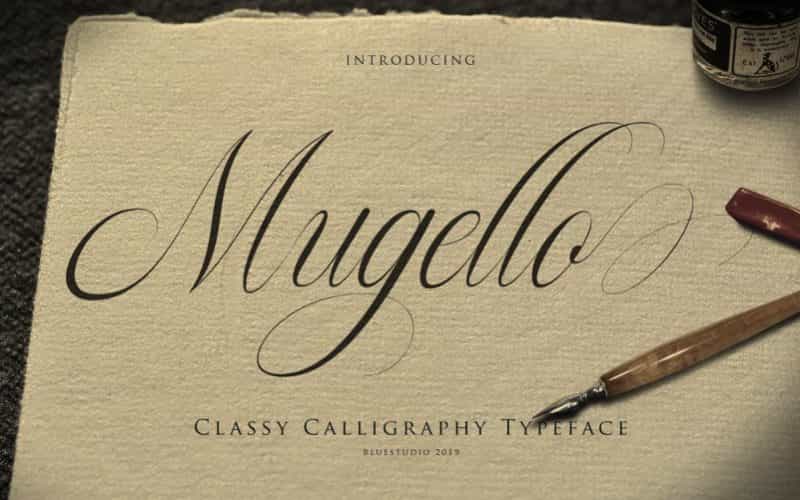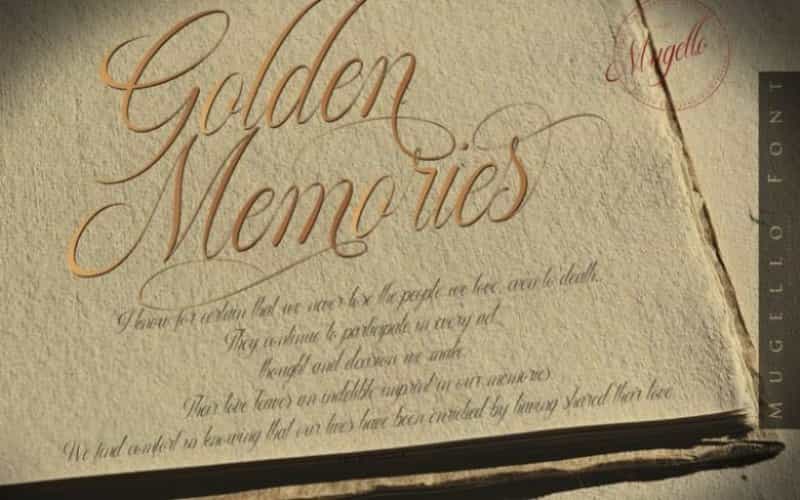
Introducing our newest product Mugello. Mugello is a classy, modern and clean calligraphy font. The mani feature of Mugello is distinct with its slashing. Mugello is suitable for all your design project needs such as: logo design, branding, covers, posters, magazines, wedding invitations, greeting cards, quotes and more.